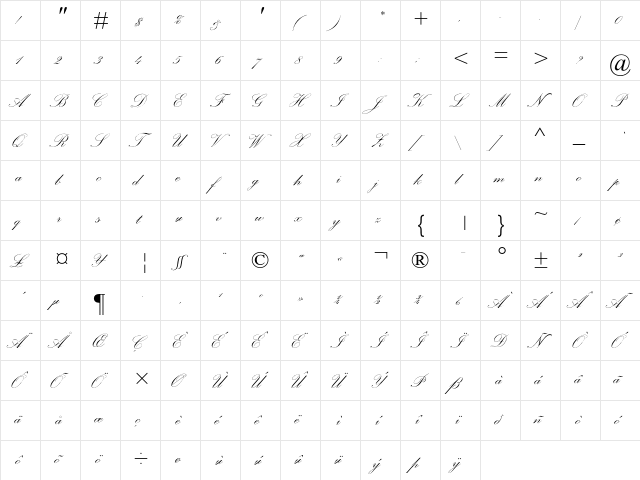
Palace Script Regular
Design Context for Palace Script Typeface
Palace Script brings a calligraphic fluidity to the page — its connecting strokes and expressive curves give it an unmistakably human quality.
Font Pairing: Combine Palace Script with a simple geometric sans for maximum contrast — the tension between flowing curves and clean structure is a classic typographic pairing.
Pro Tip: Use Palace Script for short runs of text — names, titles, or taglines. Extended body copy in script faces tires the eye quickly.